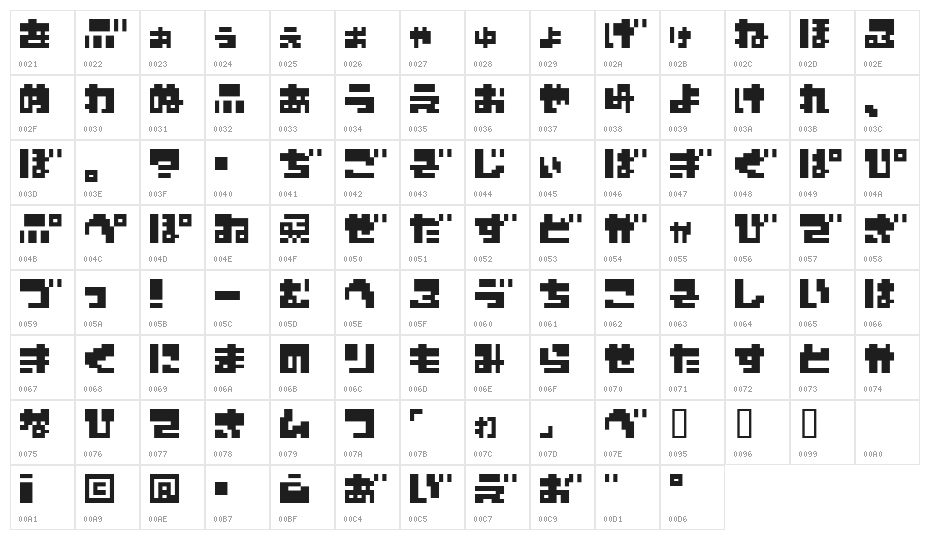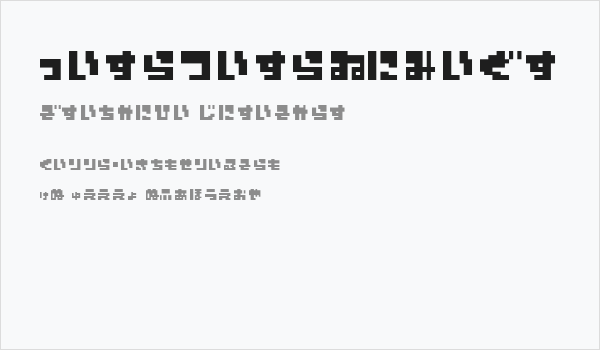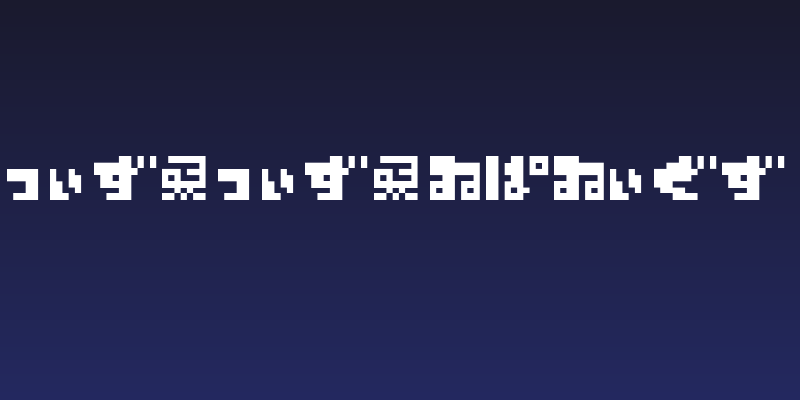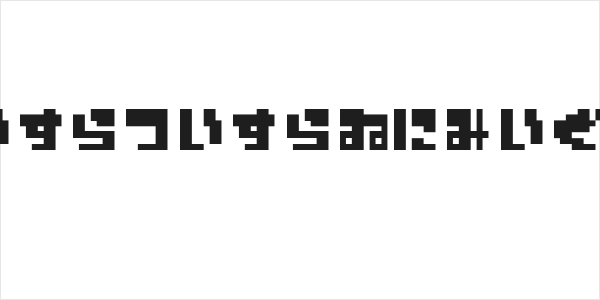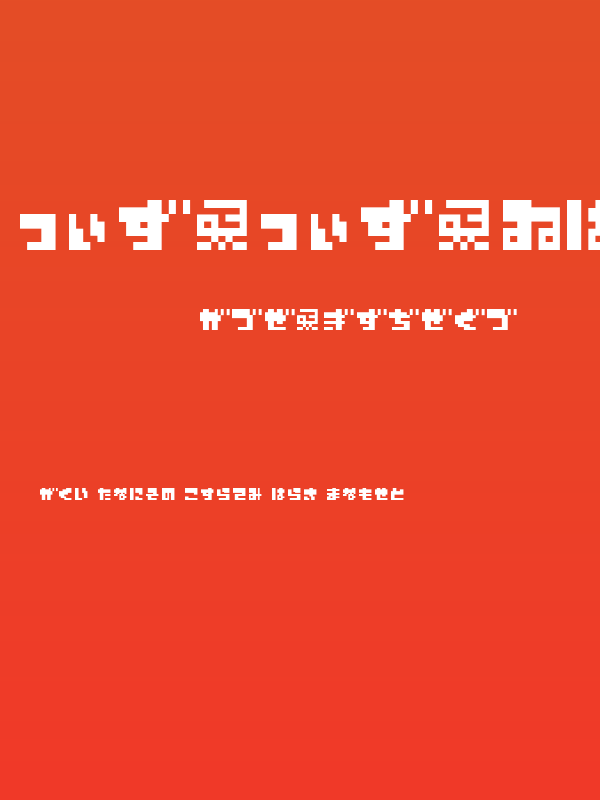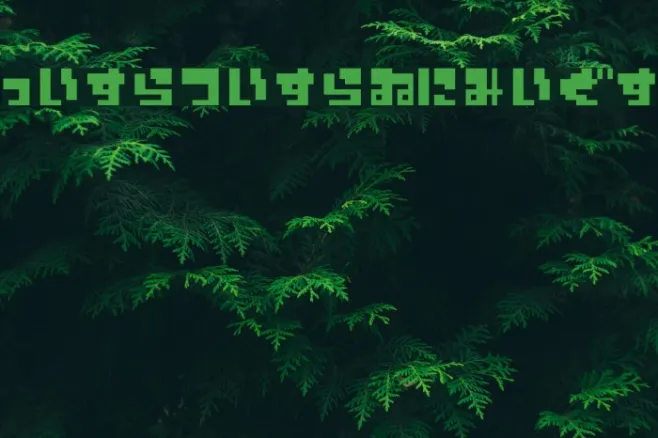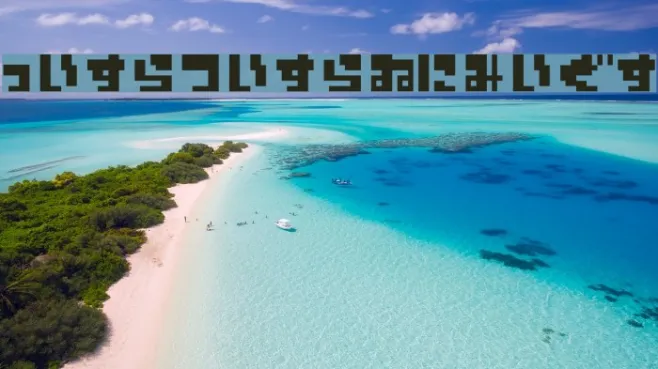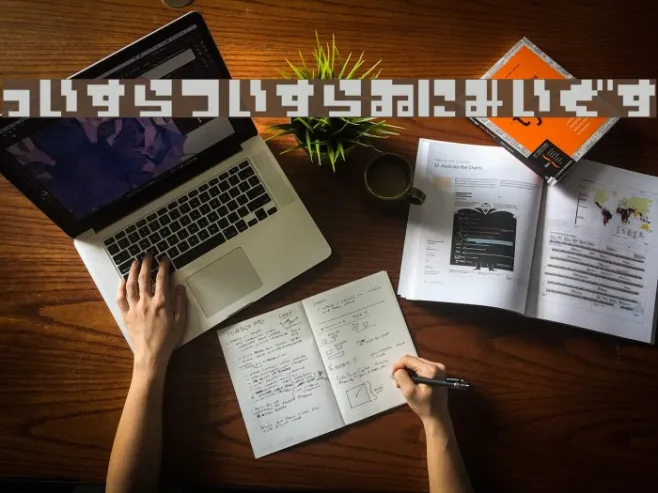
ZerozeroNineHr Font
ZerozeroNineHr Description
This font features a bold, blocky design with a pixelated aesthetic reminiscent of retro video games. The characters are uniformly wide, creating a monospaced appearance that enhances readability in digital formats. The strokes are consistent in thickness, contributing to a low contrast look. The overall style is distinctly modern with a nod to vintage digital displays, making it suitable for projects that require a tech-savvy or nostalgic feel. The characters are evenly spaced, ensuring clarity and legibility across various applications.
| Overall Style | Modern, Vintage |
| Use Case | Headlines, Logos, Digital displays |
| Proposed Projects | Ideal for video game design, tech-themed posters, digital art projects, and retro-style branding. |